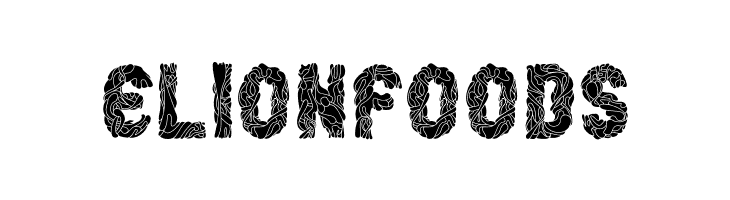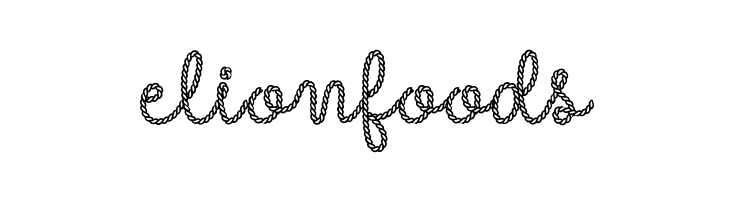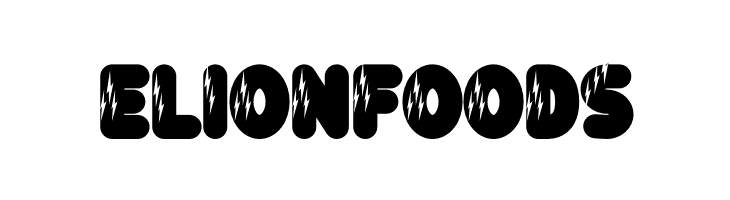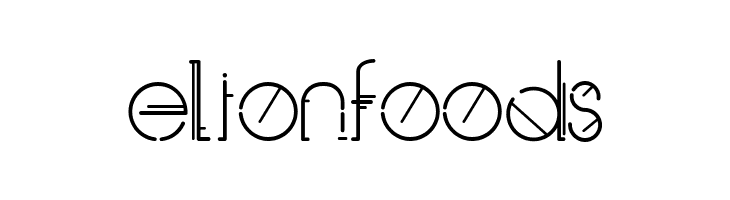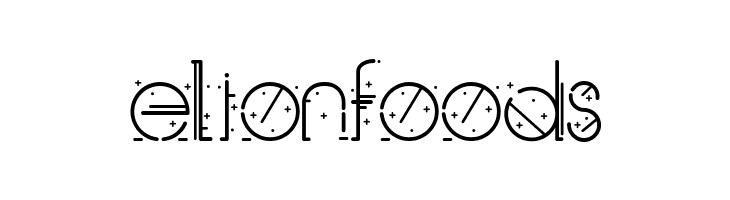
A modern, geometric font with thin lines and circular elements.
A decorative, star-accented font with a modern, whimsical style.
A bold, graffiti-inspired font with a playful, handwritten style.
A modern, geometric font with thin lines and a sleek, futuristic design.
A sleek, modern italic font with thin strokes and a futuristic touch.
A bold, dynamic font with lightning bolt motifs for energetic designs.
A bold, decorative font with intricate swirling patterns.
A playful, rope-themed font with a detailed, three-dimensional appearance.